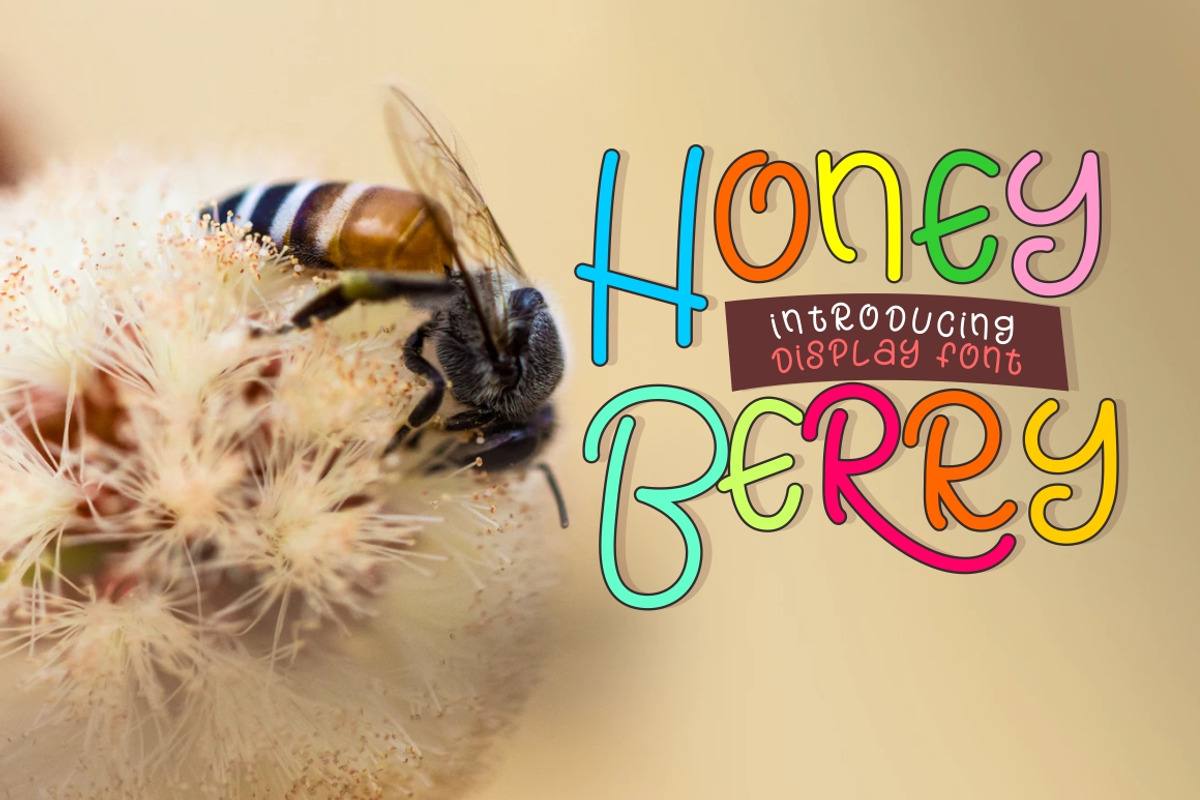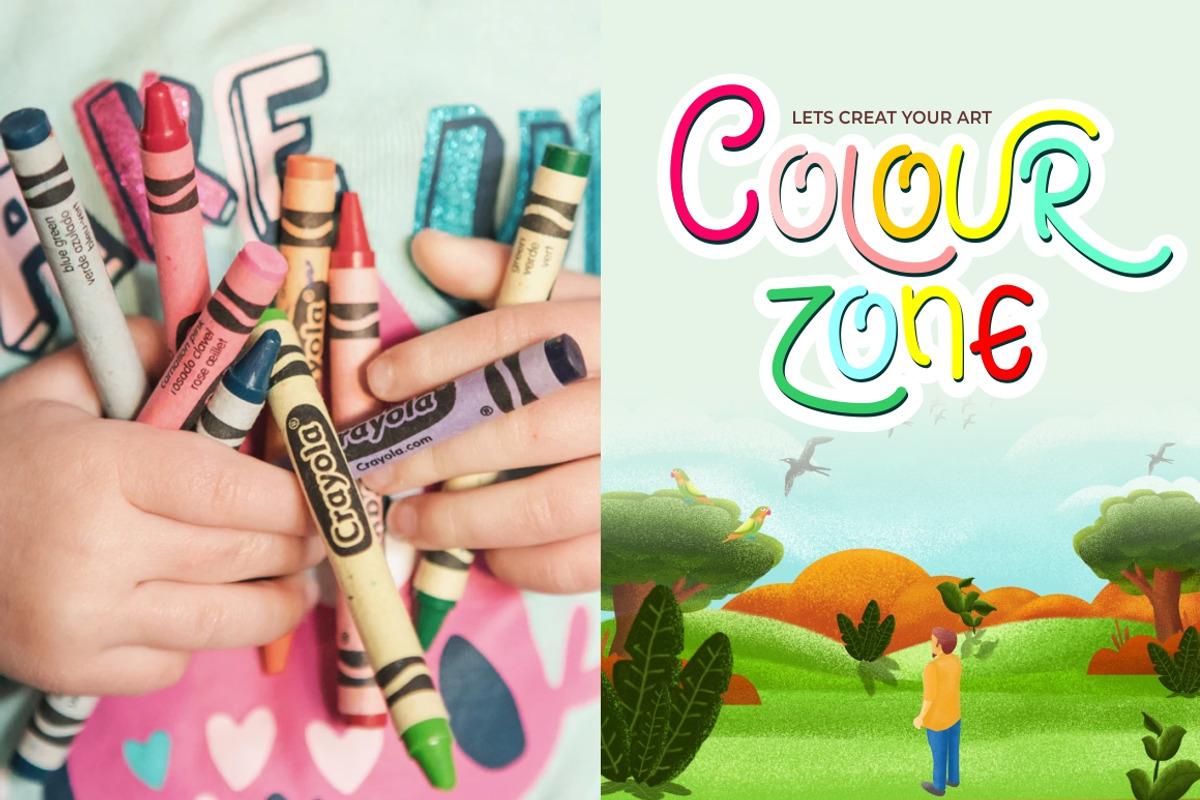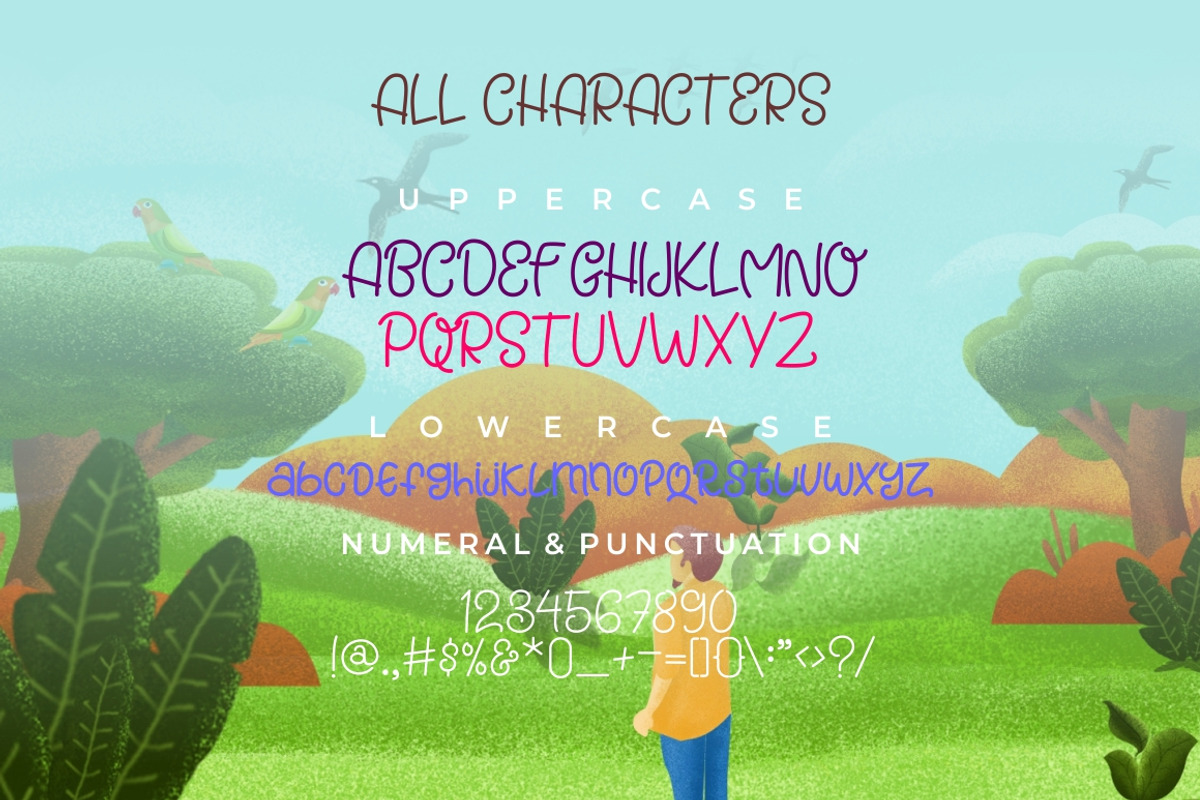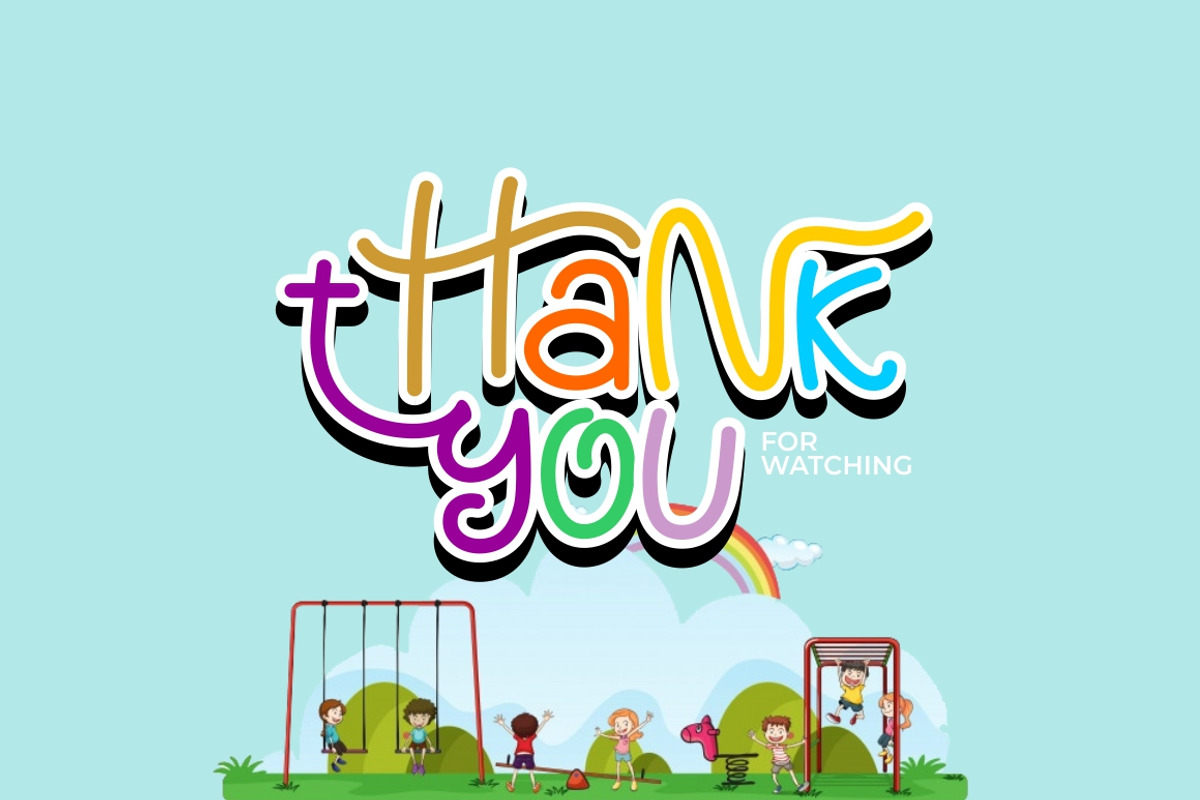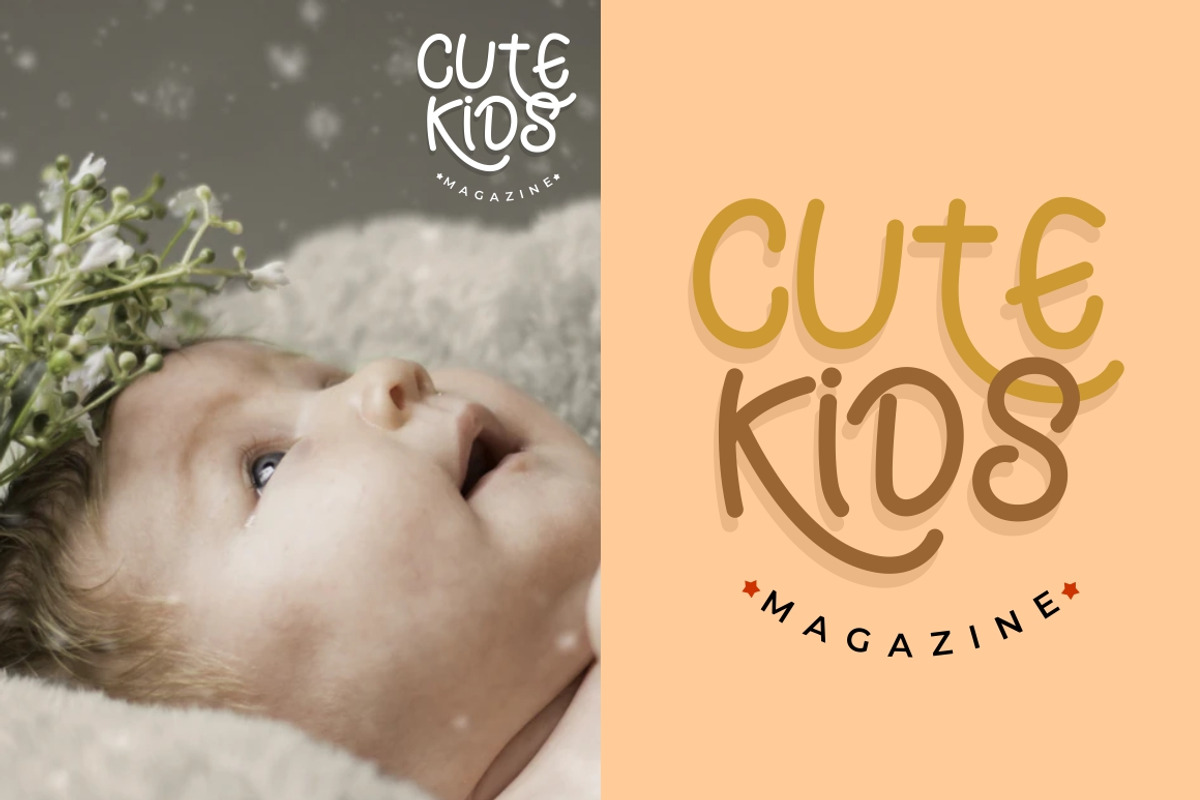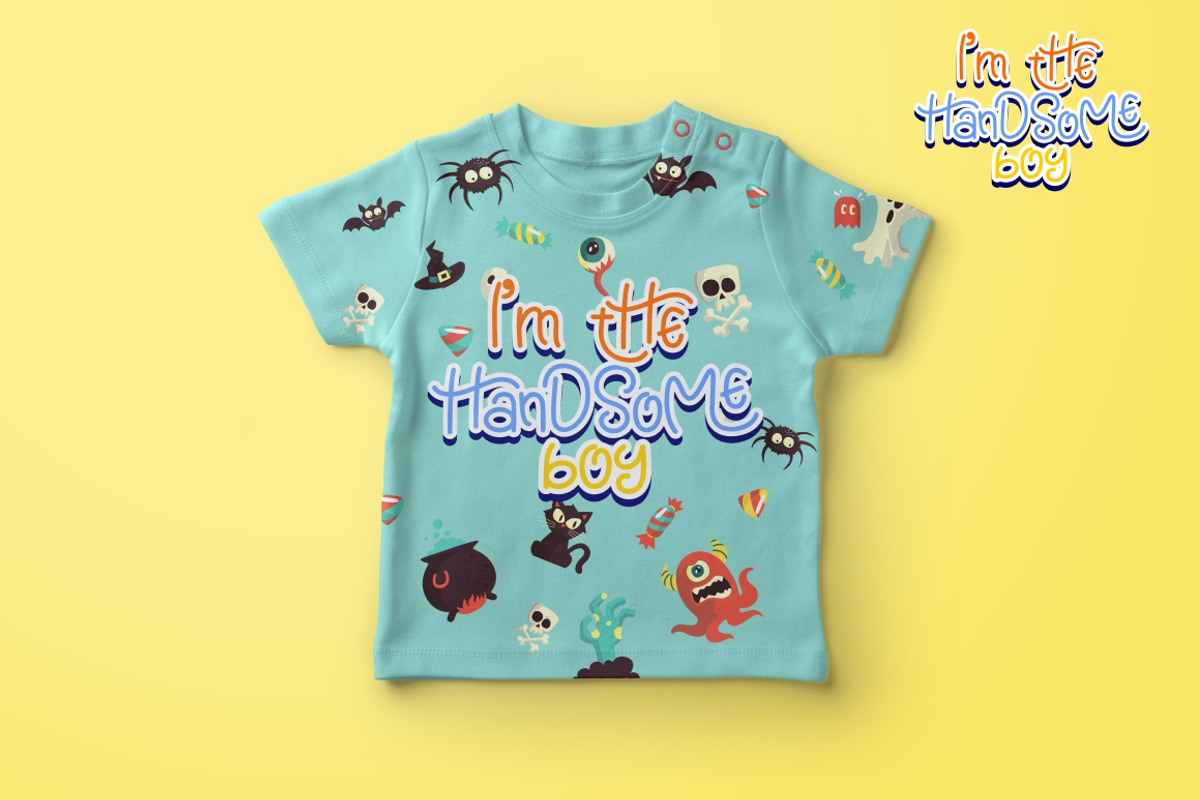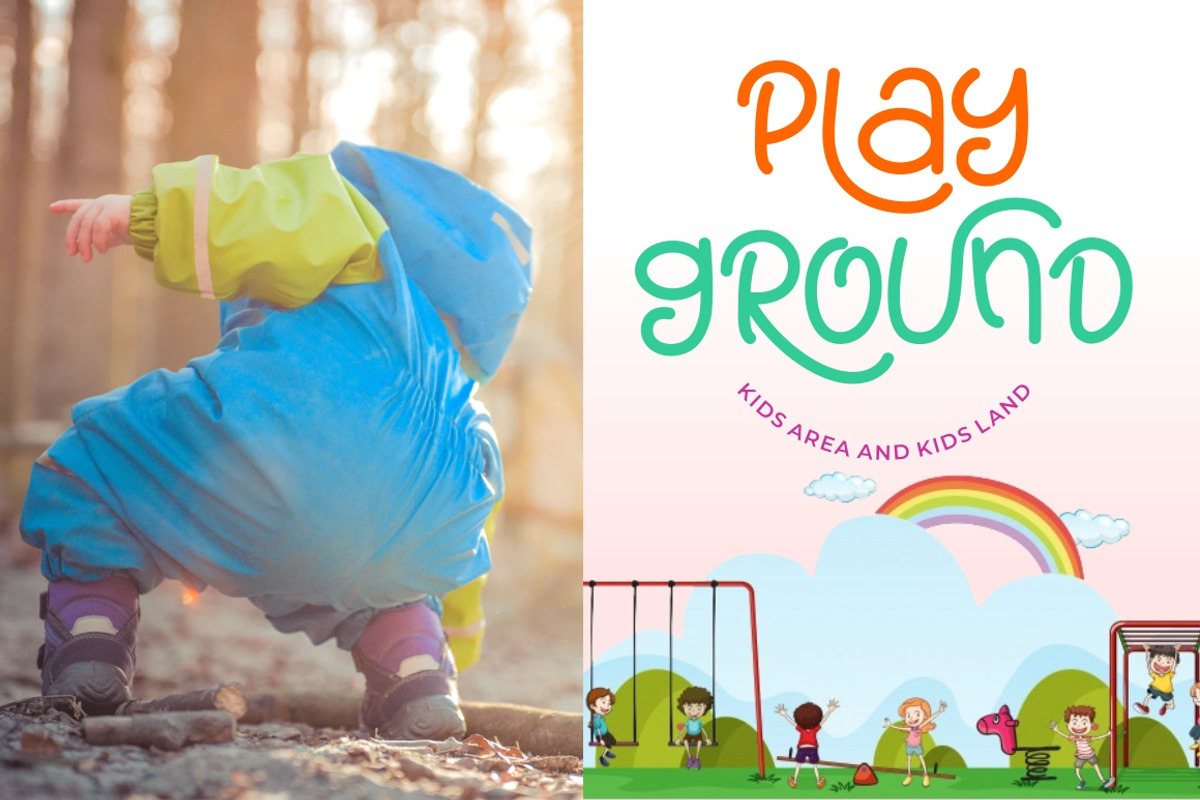
Honey Berry - Playful Font
Introducing ... Honey Berry - A Playful Cute Font
Honey Berry is a playful cute and fun display font. Honey Berry would be perfect for 1uotes, doodle, comic, books, greeting cards, toys, posters, baby clothing, picture books or anything that requires a fun and happiness look!
Why Honey Berry - Playful Font is worth a look
Honey Berry - Playful Font by PutraCetol Studio fits naturally into Branding, posters, packaging, typography.